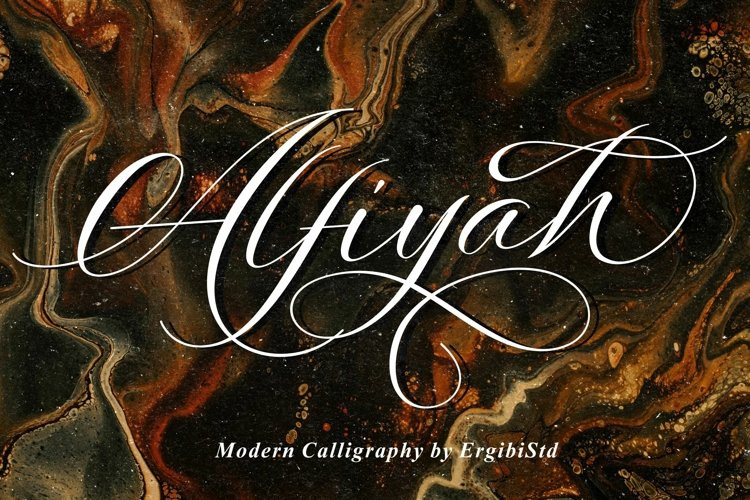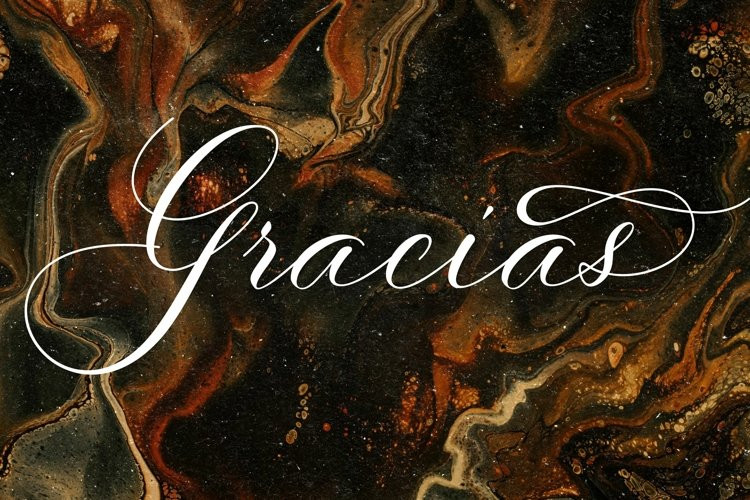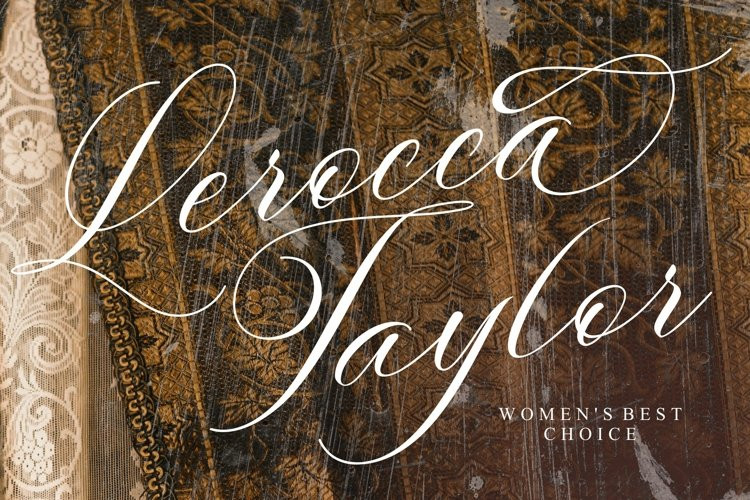
Alfiyah Font
Alfiyah FontIntrducing Alfiyah is a calligraphy script font that comes with a very beautiful change, a kind of classic decorative copper script with a modern touch, made with great detail to present a stylish appearance and of course very easy to read.
The classic style is equipped with an alternative stylistic which is very suitable to be applied in various formal forms, especially wedding invitations, labels, restaurant menus, logos, fashion, make up, stationery, novels, magazines, books, greeting/wedding cards, packaging, labels or all kinds of advertisements.